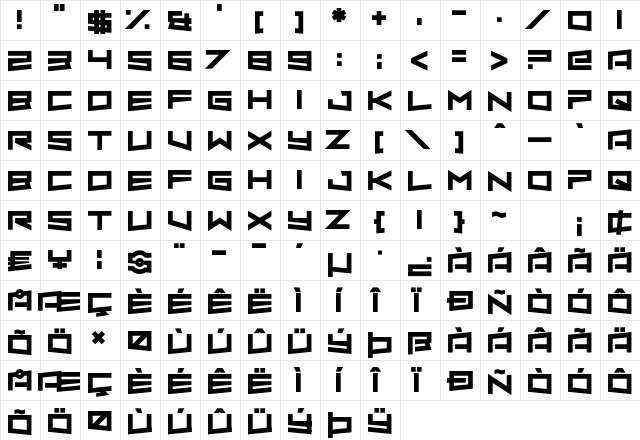
Almond Rocks Regular
| Designer | NAL |
Design Context for Almond Rocks Typeface
Almond Rocks is a composed and adaptable typeface that performs quietly and consistently across a wide range of design contexts.